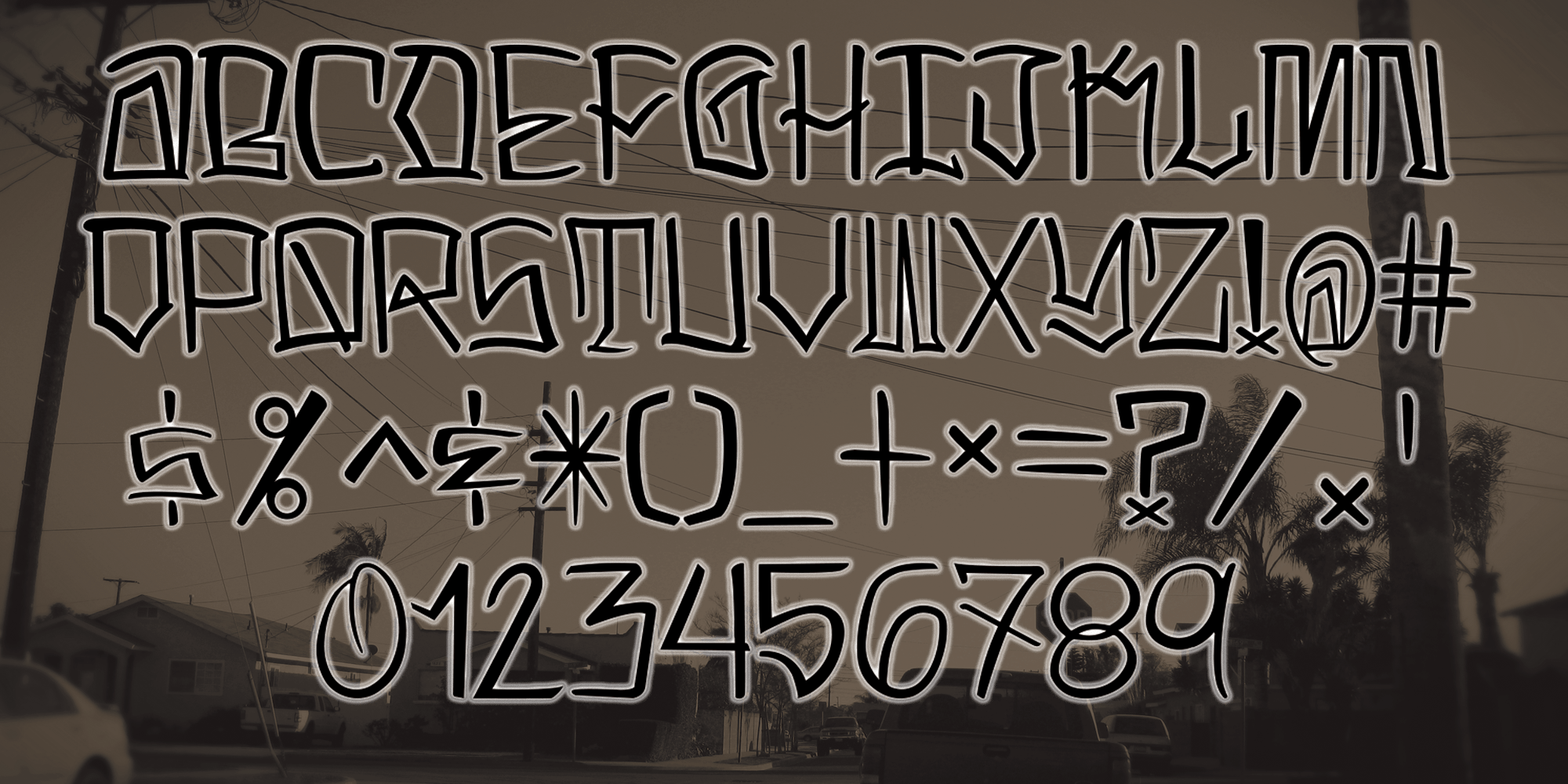
LA Gang Font Set01 Font is ideal for urban streetwear brand logos, hip-hop album covers, street art gallery displays, skateboard deck graphics, urban lifestyle magazines, graffiti-inspired murals, youth culture campaigns, and West Coast themed designs. Its authentic street aesthetic makes it perfect for projects celebrating urban culture and contemporary street style.
What makes LA Gang Font Set01 Font exciting is its raw authenticity and bold street credibility that captures the essence of Los Angeles urban culture. The distinctive letterforms feature strong angular construction with edgy details that reflect the dynamic energy of city streets. This typeface embodies urban sophistication and street-smart attitude, making every design feel genuine and culturally relevant.
LA Gang Font Set01 Font family includes Regular, Bold, Outline, Shadow, Stencil, and Distressed variations, offering designers comprehensive tools for creating impactful urban-inspired typographic solutions.
Elevate your street-style designs with the authentic power of LA Gang Font Set01 Font Free Download. This dynamic typeface brings genuine urban energy to any creative project, whether you're developing brand identities for streetwear companies, crafting promotional materials for music events, or designing graphics for youth-oriented brands. The font's street-smart architecture and bold personality make it indispensable for projects requiring authentic urban appeal. LA Gang Font Set01 Font perfectly captures the spirit of contemporary street culture while ensuring maximum visual impact across all applications. Its edgy character forms and urban design language make it ideal for brands seeking to connect with audiences through authentic street credibility, delivering memorable results that resonate with modern urban lifestyle enthusiasts.